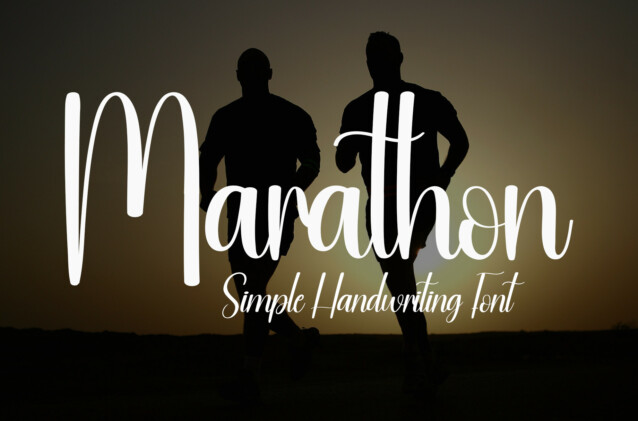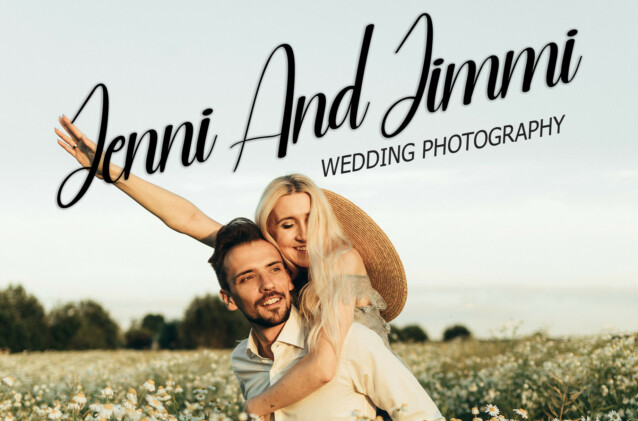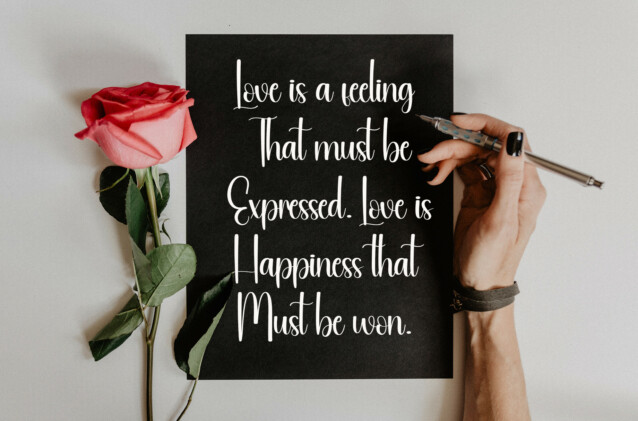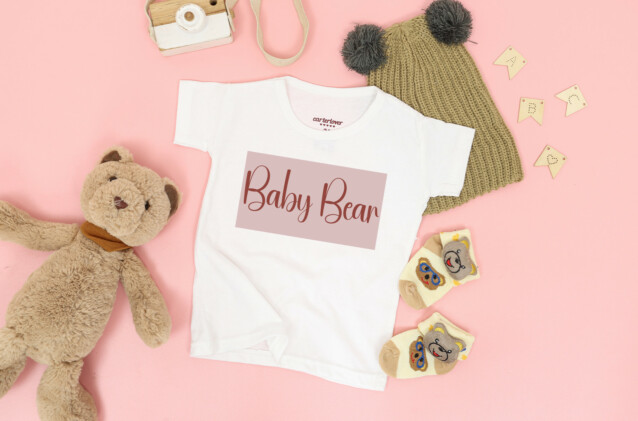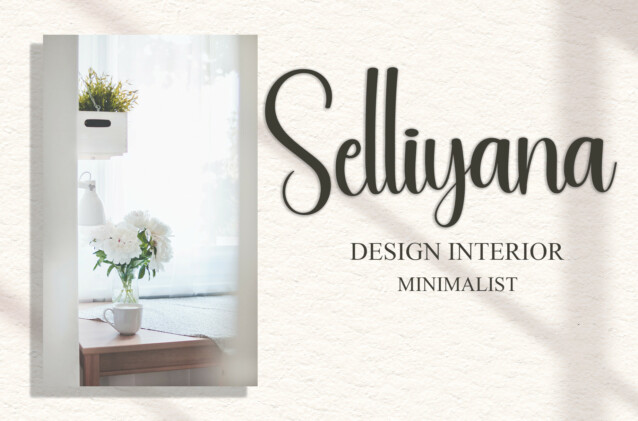
Marathon Script Font
Marathon Script Font is a sweet and friendly handwritten display font. Cute and fun, this font is ideal for writing wedding invitations, cards, or any other design that might need a playful touch!